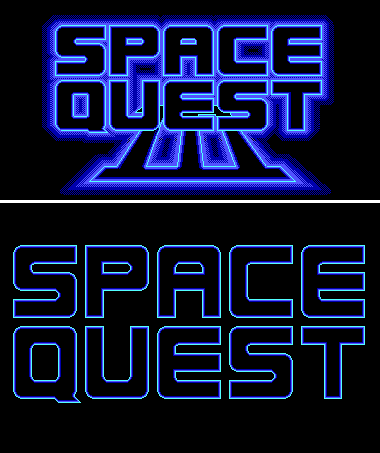
:) Space Quest was the first game I ever had. I played on an Amstrad 15/12 and the game came on 11 floppy disks! Great fun.
10/10 (for bringing back happy memories as well as a great font)
Great retro font! 10/10
Lowercase 'q' has extra stuff
@j4s13 - Yes, that is on purpose.
For the Space Quest 1 & 2 logos, they used the "Q" in the uppercase position, but for Space Quest 3, they used the "Q" that's in the lowercase position.
In my pictures, you can see the original screen-captures at the top and my version at the bottom of each set for comparison.
I made both "Q" versions so you could used whichever "Q" you'd like! :^)
(The two "P"s are slightly different, too.)